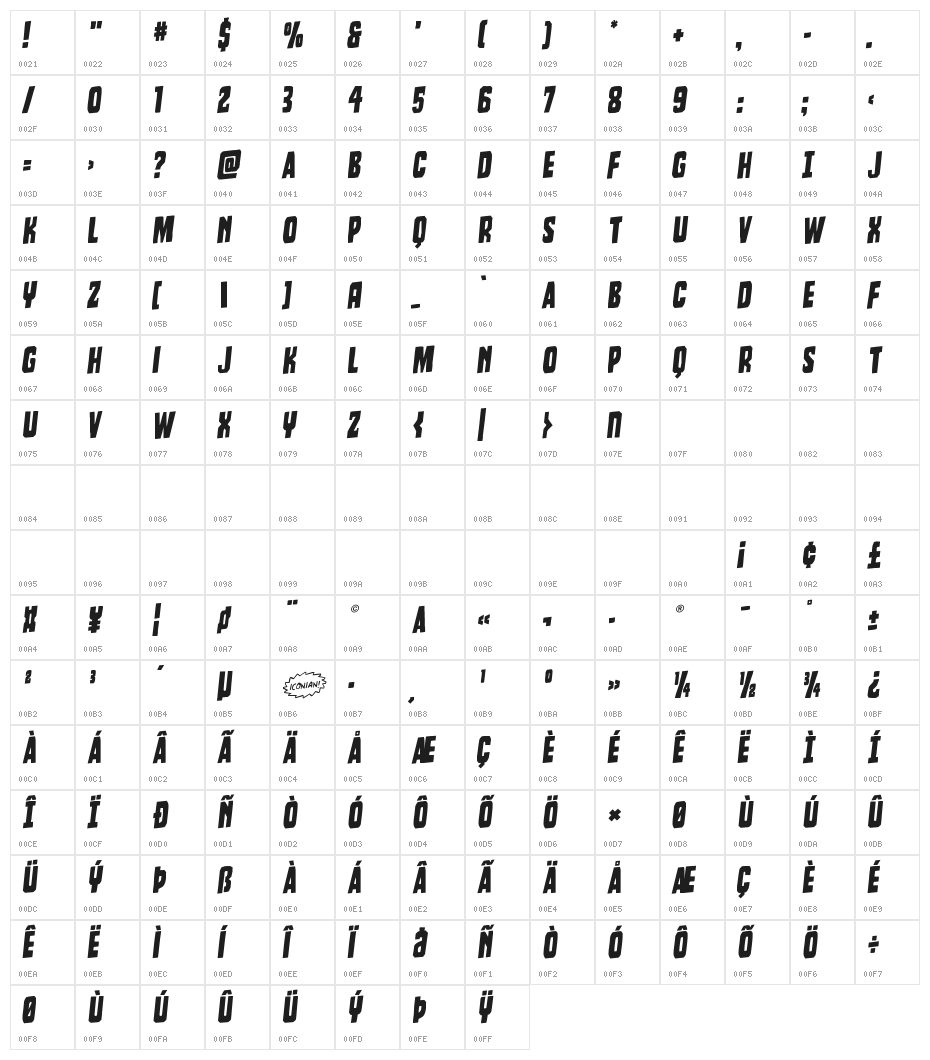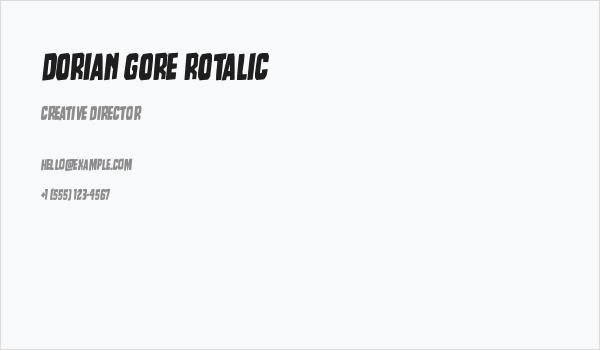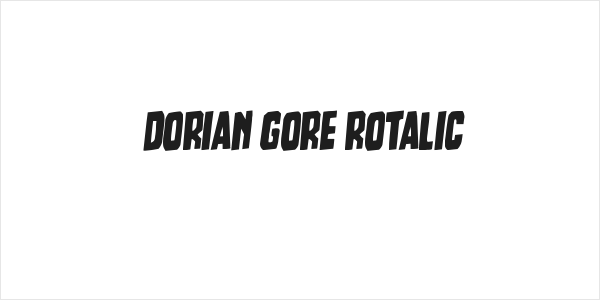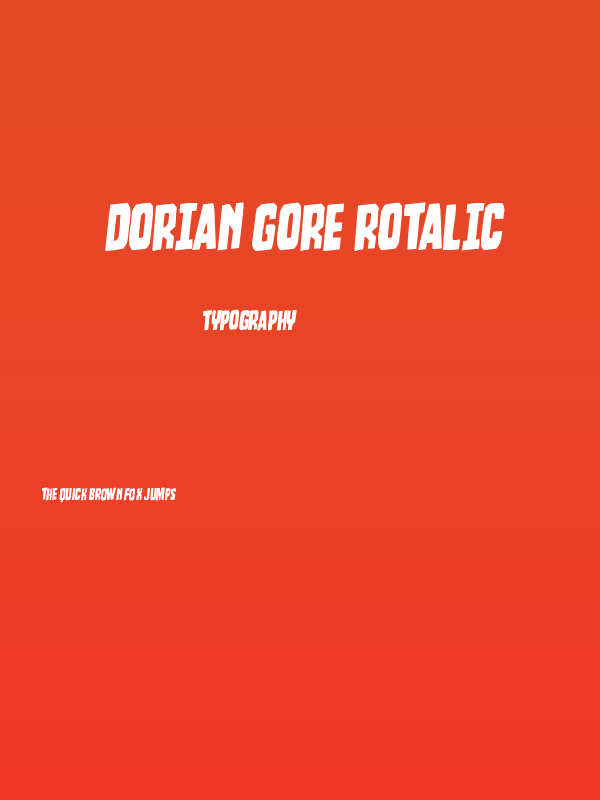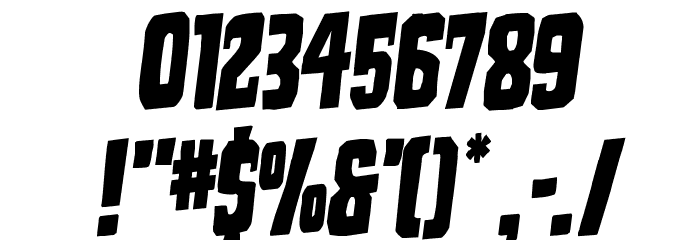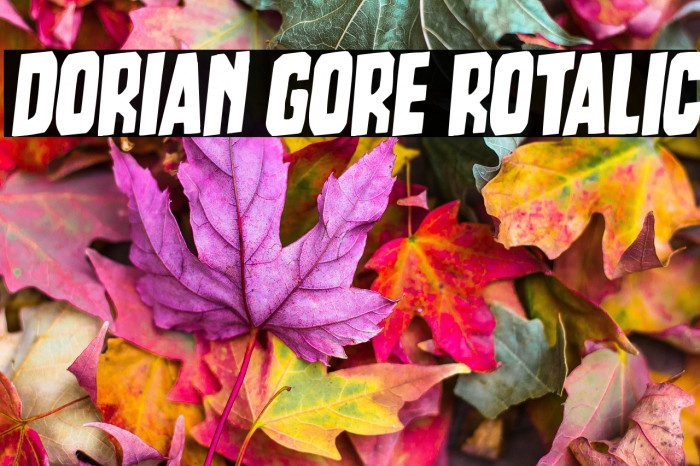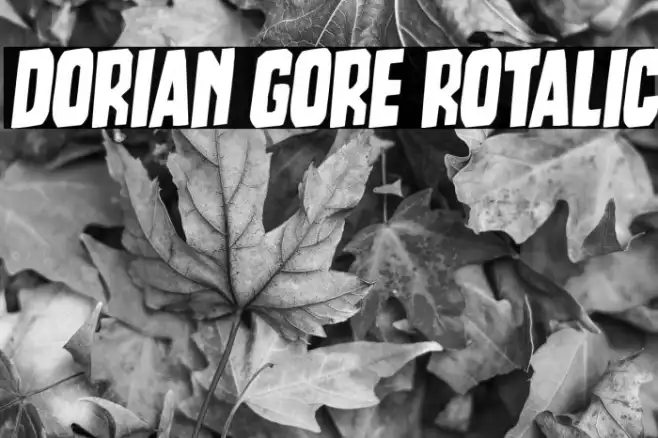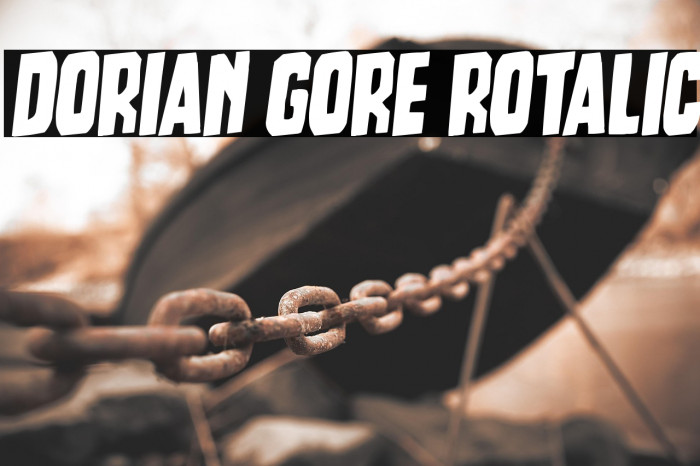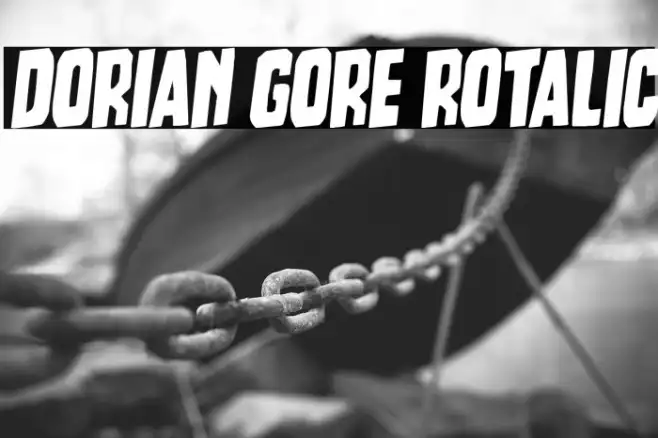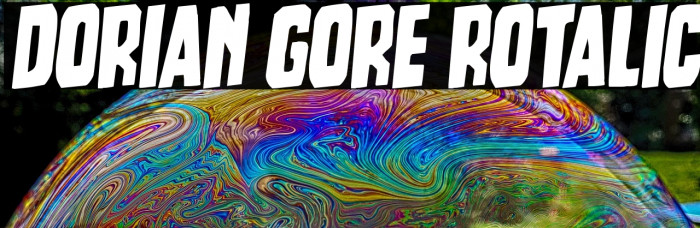
Dorian Gore Rotalic Font
Dorian Gore Rotalic Description
This font features a bold and dynamic style with a strong, angular design. The characters are slanted, giving a sense of movement and energy. The uppercase and lowercase letters maintain a consistent width, creating a uniform appearance. The numbers and special characters follow the same bold and slanted style, ensuring cohesion across all elements. The font's thick strokes and sharp edges make it highly legible and impactful, suitable for attention-grabbing designs. Its unique style is ideal for projects that require a modern and edgy look.
| Proposed Projects | Ideal for sports branding, poster designs, video game titles, and dynamic advertising campaigns. |